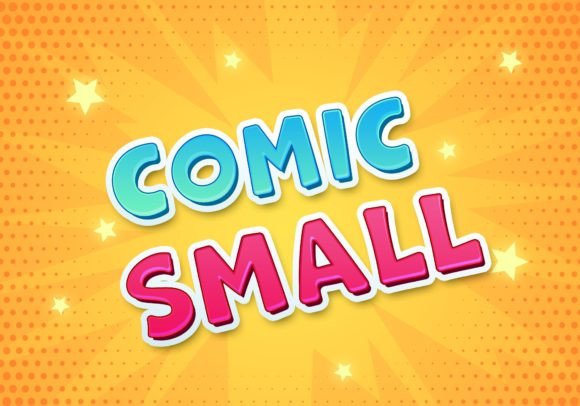
Fasten your seatbelts and prepare to be amazed by Comic Small, a font that embodies the vibrant spirit of pop art and the captivating charm of retro style. This extraordinary display font is meticulously designed to be the ultimate attention-grabber, whether you're crafting comic book titles, eye-catching posters, or any other project yearning for a dash of dramatic flair.
With its playful personality and bold presence, Comic Small possesses the uncanny ability to transform ordinary words into captivating statements. Its unique design, reminiscent of retro comic books, adds a touch of nostalgia and a sense of adventure to your creations. Unleash your inner artist and let Comic Small elevate your designs to new heights of creativity.
But wait, there's more! Comic Small isn't just a pretty face; it's also incredibly versatile. Its adaptability shines through in various design applications, from web design and branding to social media posts and product packaging. Its readability on small screens makes it an exceptional choice for mobile-friendly designs, ensuring your message resonates with your audience wherever they may be.
So, if you seek a font that sparks imagination, ignites passion, and leaves a lasting impression, look no further than Comic Small. It's the perfect companion for designers, artists, and anyone who desires to make a bold statement with their creations. Embrace the power of Comic Small and unlock a world of endless creative possibilities.